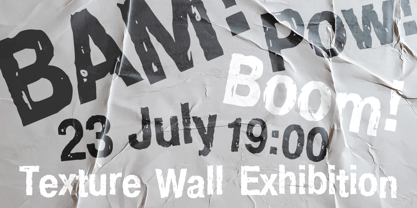
Crash
by ParaType
Developed at ParaType in 1995 by Alexander Tarbeev, based on Pragmatica, 1989, by Vladimir Yefimov. For use in advertising and display typography.